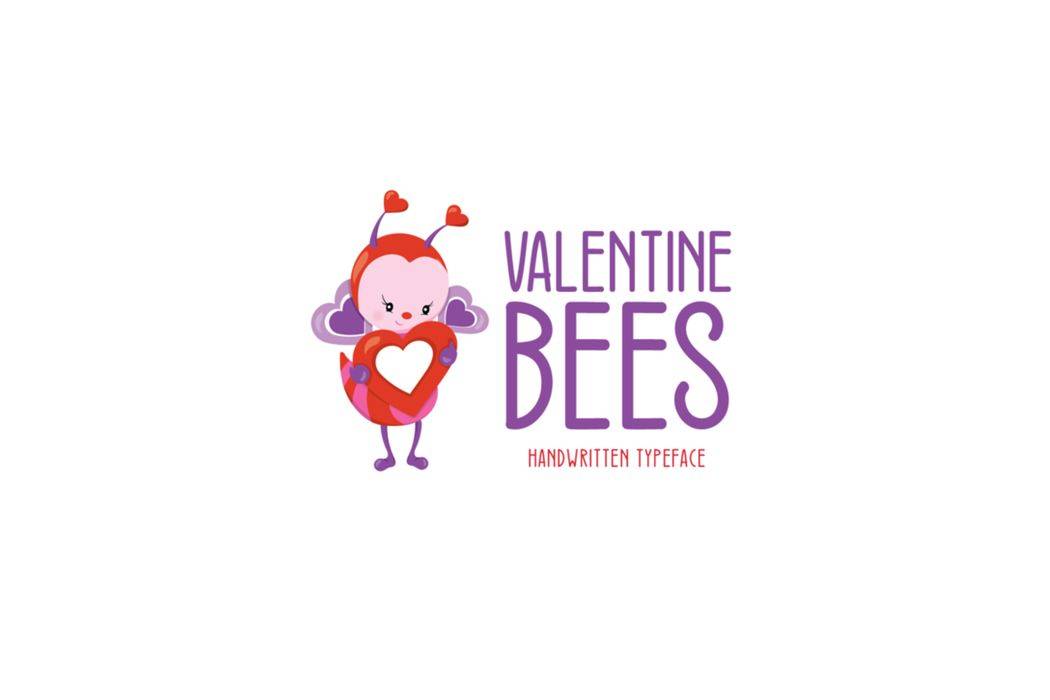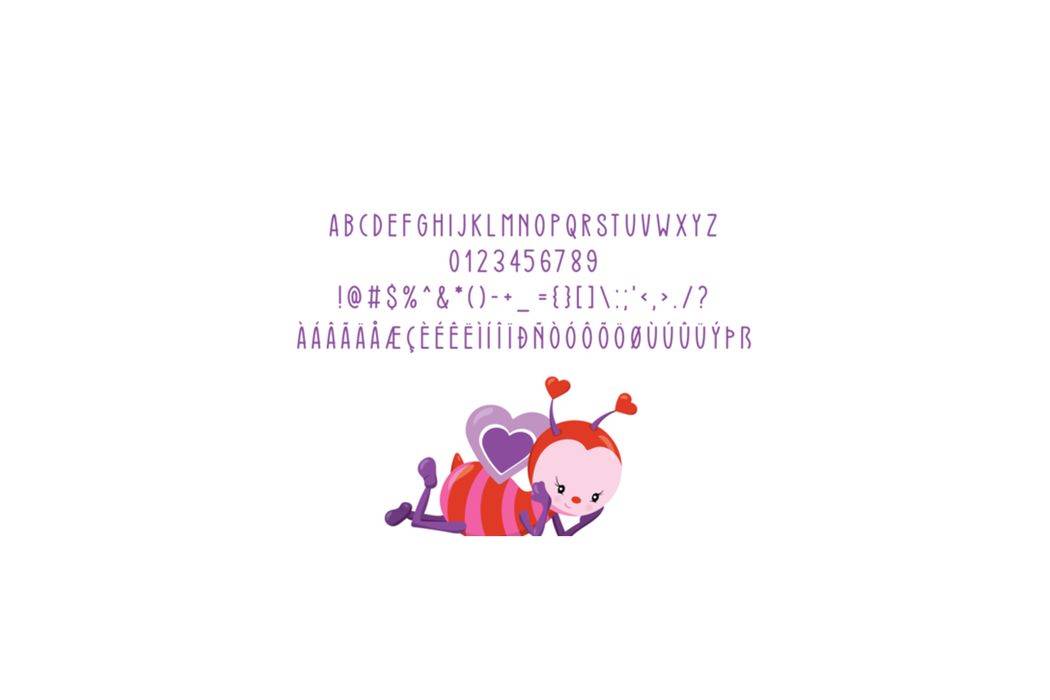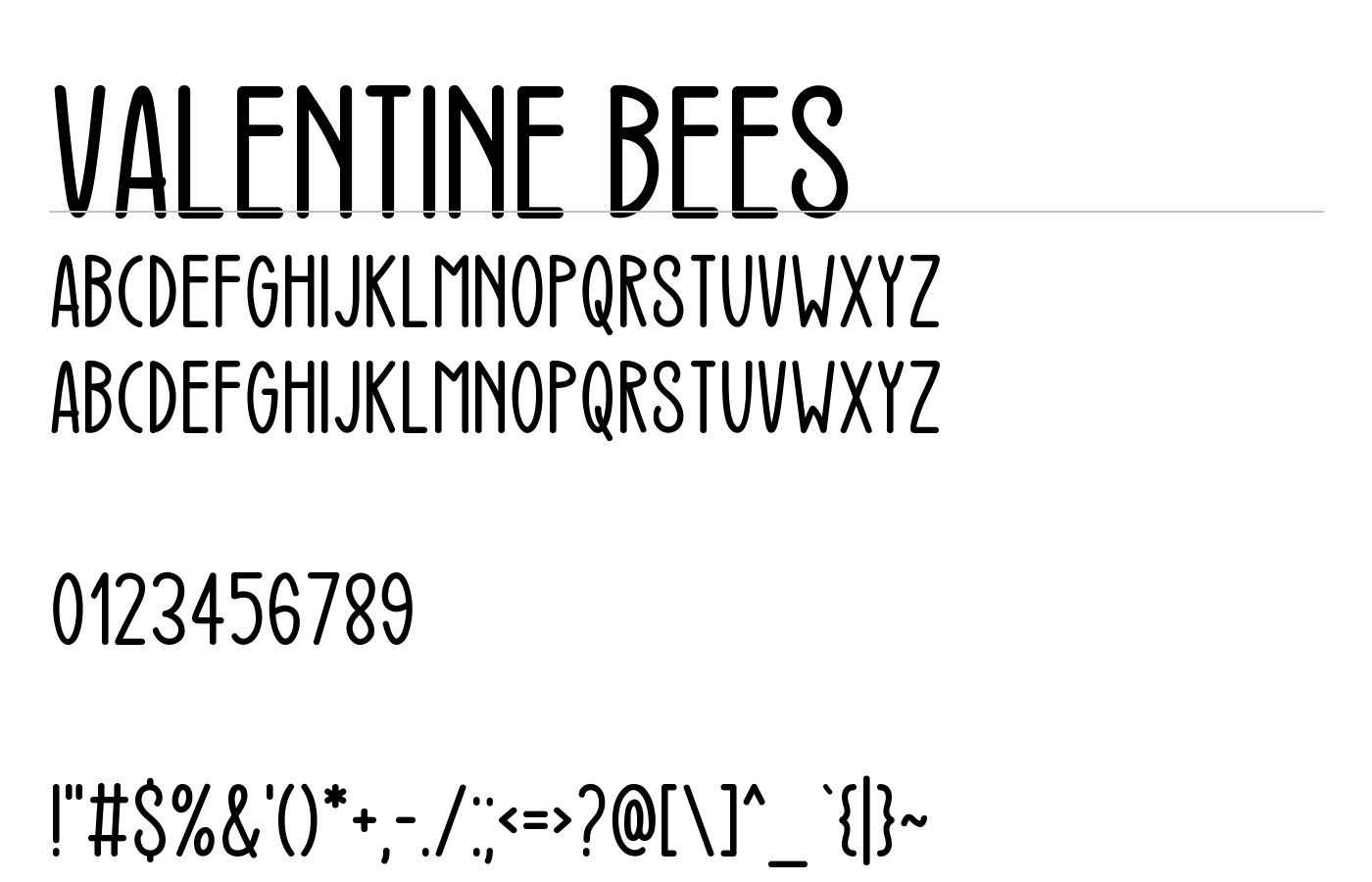
Valentine Bees is a tall, narrow sans serif font with a playful and slightly quirky character, featuring clean, consistent strokes and a hand-drawn feel. Its slender letterforms and casual style make it ideal for creative projects, such as invitations, children’s books, or lighthearted branding that seeks a friendly and approachable vibe. This font works best in headlines or short texts where its unique personality can stand out without sacrificing readability.
Valentine Bees Font